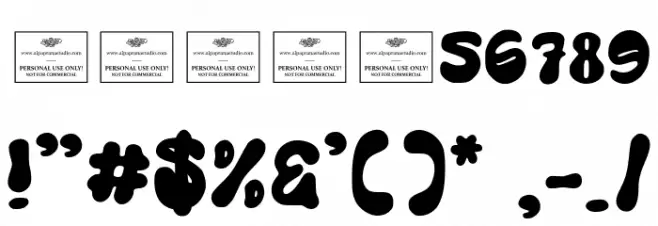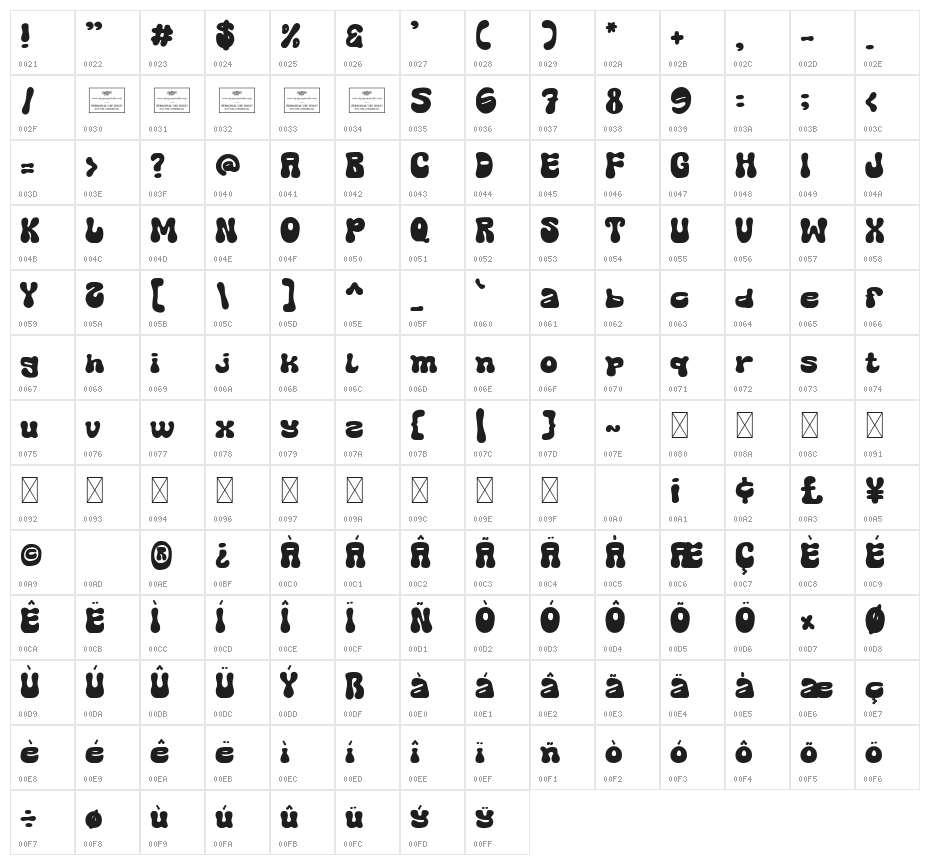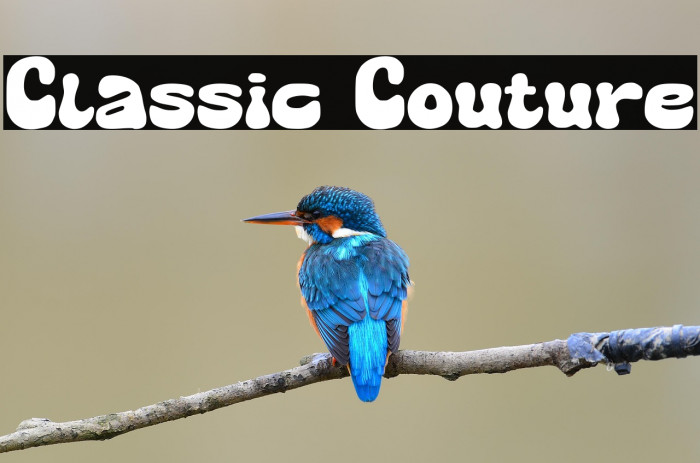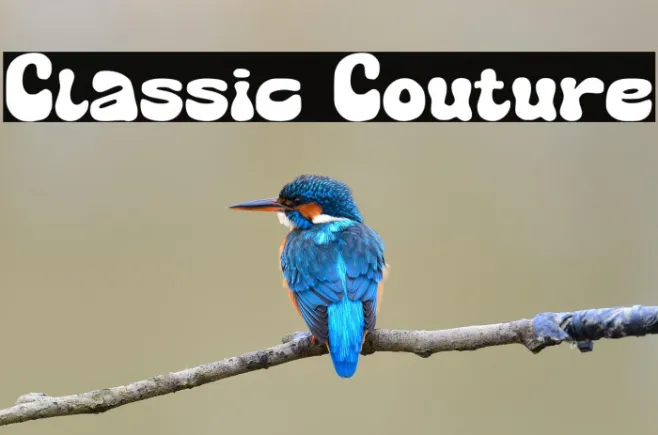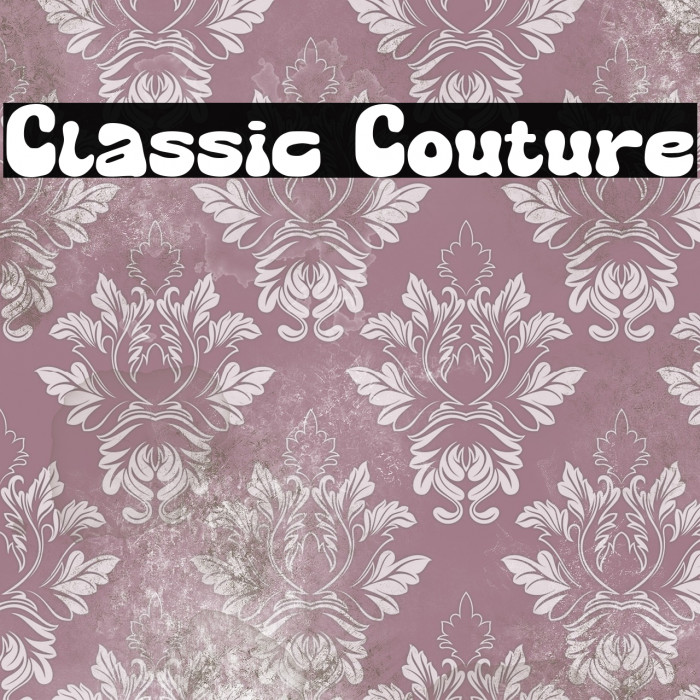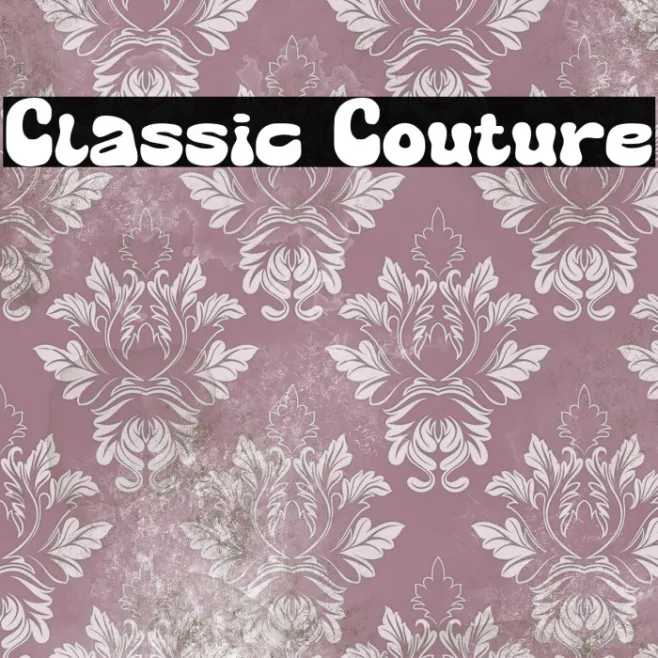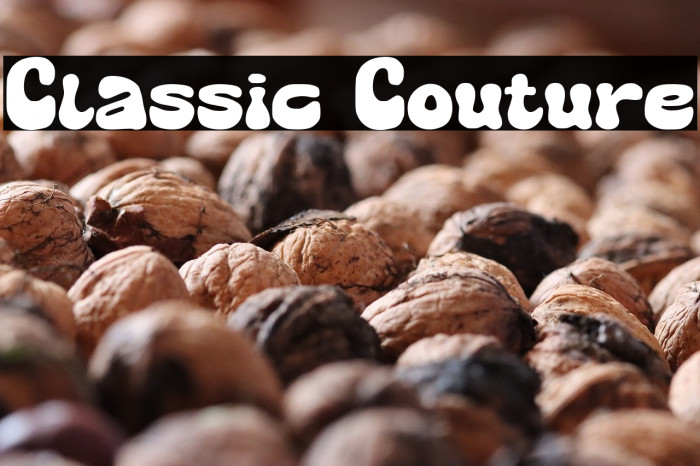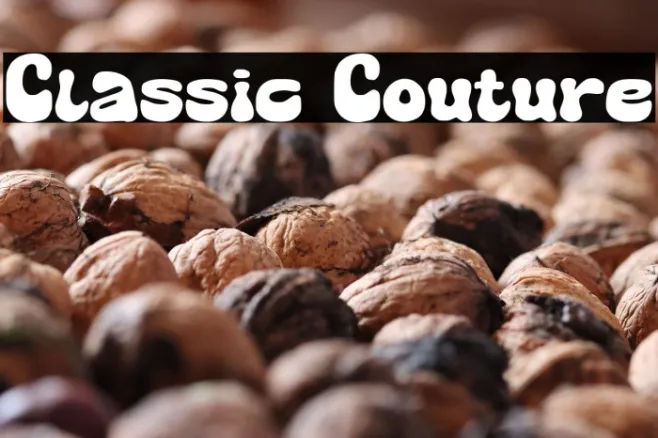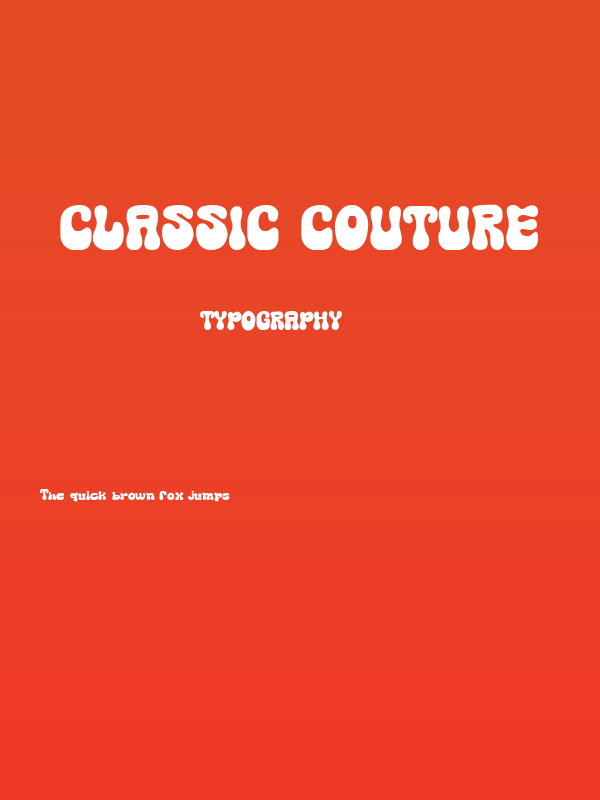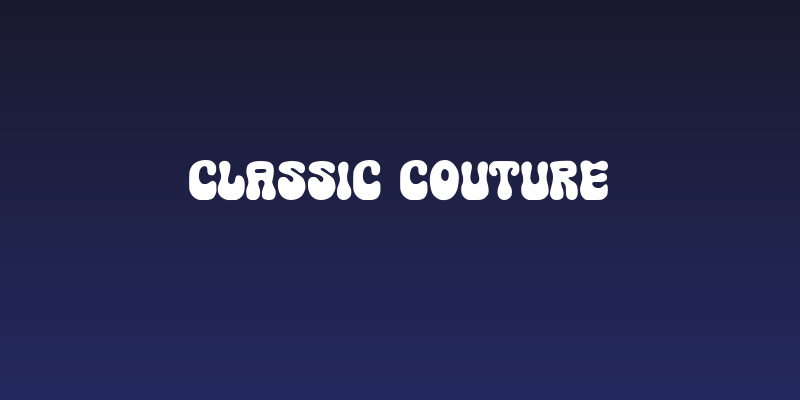
Classic Couture Font
Classic Couture Description
This font features a bold and playful design with rounded, bubbly characters that create a sense of whimsy and fun. The letters are thick and have a soft, organic feel, making them stand out with a unique personality. The font includes both uppercase and lowercase letters, numbers, and a variety of special characters. Its distinctive style is reminiscent of retro and vintage aesthetics, yet it maintains a modern appeal. The characters are closely spaced, enhancing the cohesive look of the text.
| Overall Style | Playful, Retro |
| Proposed Projects | Ideal for children's books, playful branding, retro-themed designs, and eye-catching posters. |